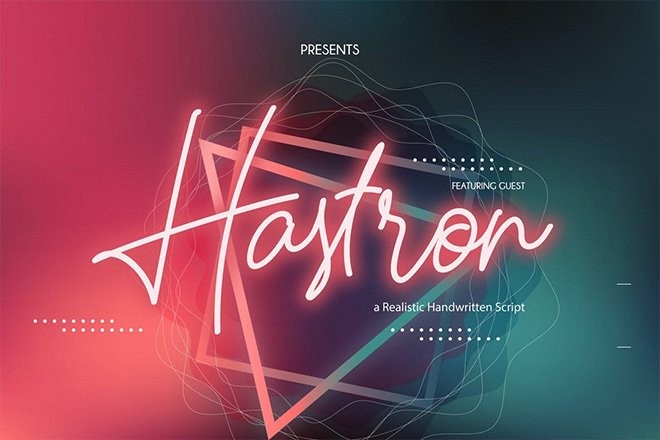
Hastron is another attractive neon-themed retro font. This one comes with a monoline script design, which makes it perfect for designing logos, badges, and labels that look like neon signs. It also includes lots of glyphs, alternates, and ligatures as well.
We can’t forget the arcades when talking about retro designs. This font comes with a creative letter design inspired by a mixture of typography styles used in arcade machines and TV shows like Knight Rider and Miami Vice. It’s perfect for everything from T-shirt designs to logos and more.
The Circus is a free retro font that comes with regular and striped font styles. It features a design mixed with vintage and retro design elements. The font is free to use with your personal projects.
This is the perfect font you can use to design stylish T-shirts with retro vibes. The font comes with a creative script design that makes it suitable for all trendy and urban designs as well.
This font comes with a set of unique character designs that you usually don’t see in a retro font. It features a combination of modern and retro elements making an elegant font style that’s ideal for modern digital and print designs. The font includes 17 different weights ranging from thin to black along with italics for each.
Munky is a slab-serif font that comes with a retro design inspired by the 60s. The thick bold letters of this font make it a great choice for crafting titles for posters and website headers. It includes both uppercase and lowercase letters.
This font is crafted to perfection by a professional designer to look and feel just like typography used in the 70s and 80s. It’s an all-caps font featuring small-caps letters. Which makes it ideal for designing big bold titles for your flyers, T-shirt designs, websites, and posters.
Retrofunk is a font that mixes vintage designs with retro typography to create a unique style of typography. Inspired by the advertising from the 70s, this font features a script serif letter design. And it comes in 3 different styles.
If you’re a fan of retro video games and want to show it off in your designs, this font is a must-have for you. It features a set of letters that features a design inspired by the classic pixelated video games. The font also comes with pixel martian designs in dingbats format.
Palm Tree is a free retro font with a classic 70s design. It’s an all-caps font that features both sans and serif letters. The uppercase set features sans letters while the lowercase set features letters with serifs.
Bertha is a free retro font that combines vintage and retro design styles to create stylish typography. It comes in 5 different styles featuring regular to bold styles and a special shadow line font design.
Magliette is a modern script font that features a retro-themed letter design. The beautiful flowing design of this font makes it a great choice for crafting badges, labels, and logos for lifestyle brands. The font includes uppercase and lowercase letters with ligatures.
This creative retro font comes with a set of stylish letters each crafted by hand. It’s inspired by the retro music and disco designs from the 80s and 90s. It includes uppercase and lowercase letters with alternates. And there’s also an extra vector design pack as well.
Lenox is a bold font that’s most suitable for designing poster titles and headings with a touch of retro design. The font comes in OpenType and TrueType formats with multilingual support.
Rigeko is a unique font that features elements from both modern and retro design worlds. It’s perfect for crafting everything from business cards to flyers and posters for modern agencies and startups. It includes uppercase and lowercase letters.